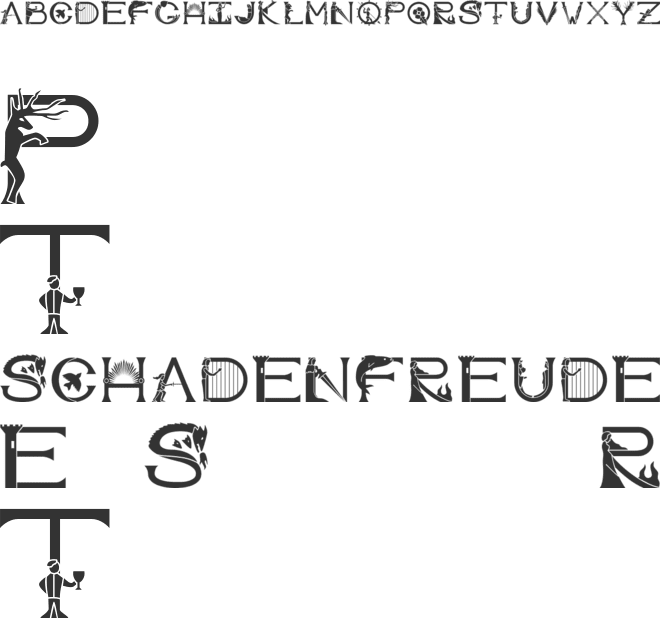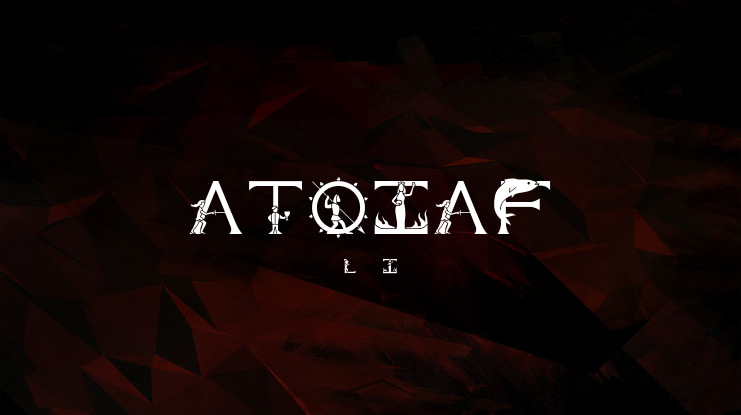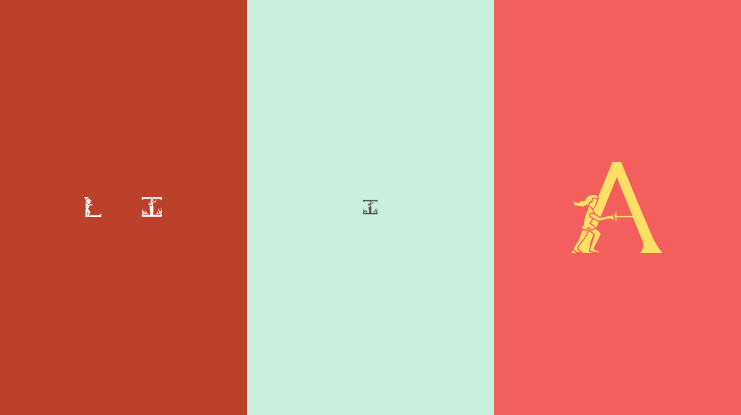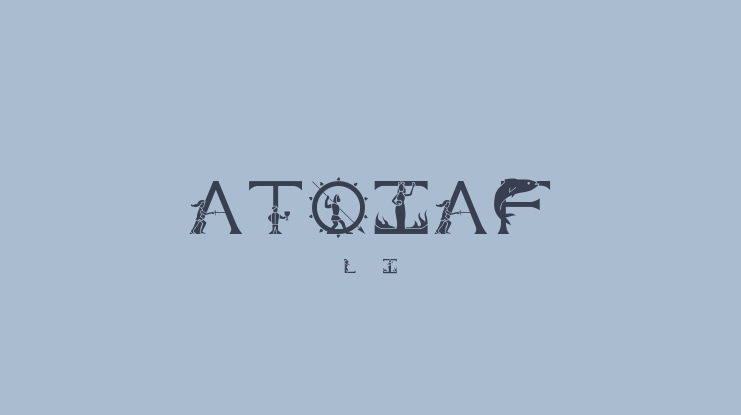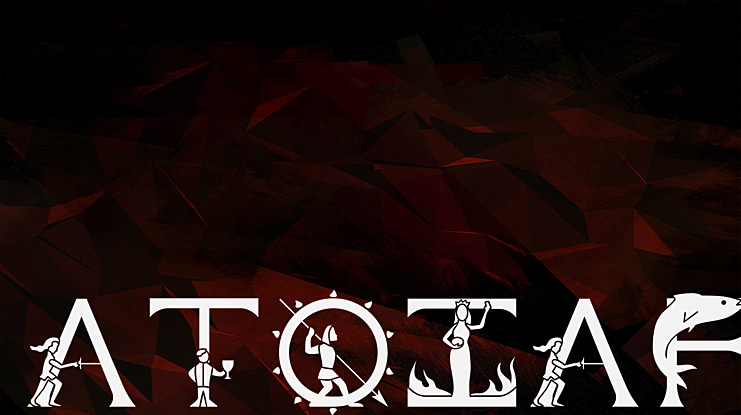
ATOIAF Font
A drop cap typeface inspired by the characters and symbols of the epic saga A Song of Ice & Fire and the TV show Game of Thrones, evoking the epic, fierce and fantastic events that happen in the Seven Kingdoms.